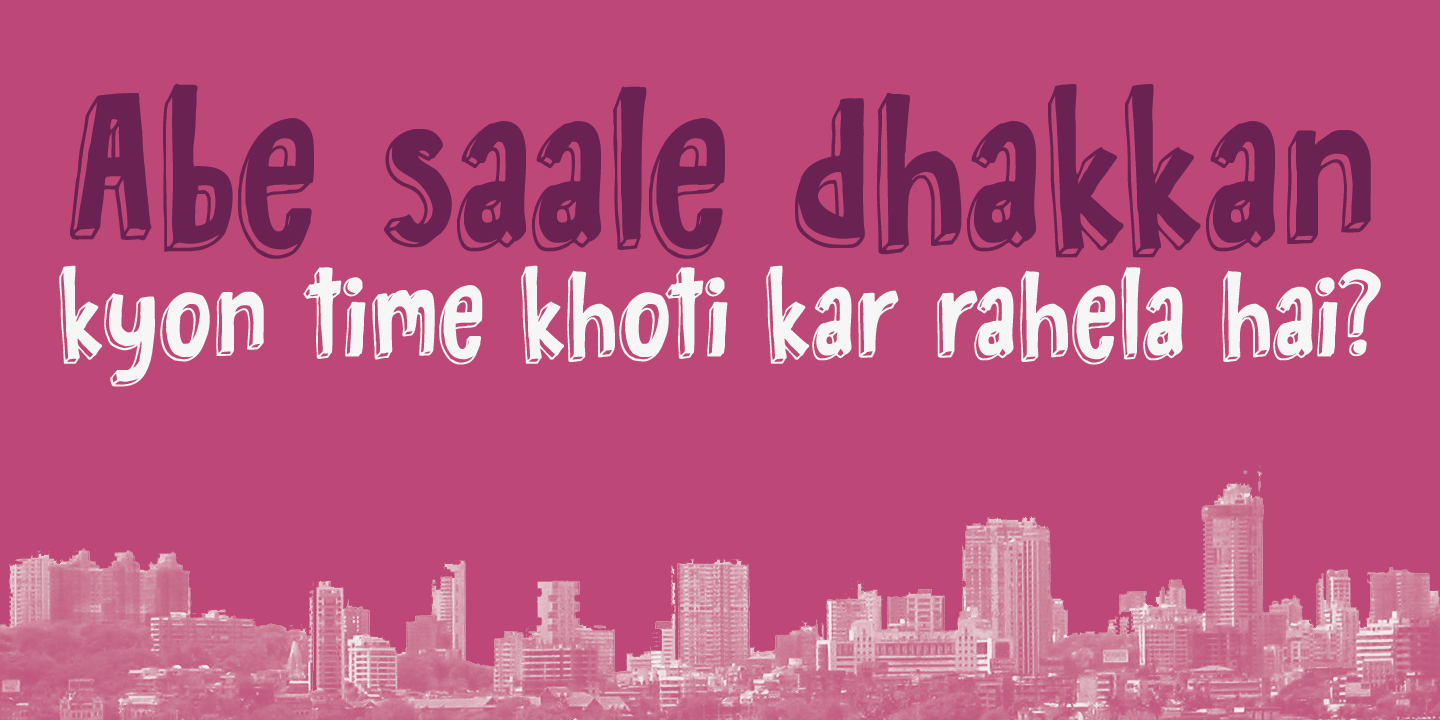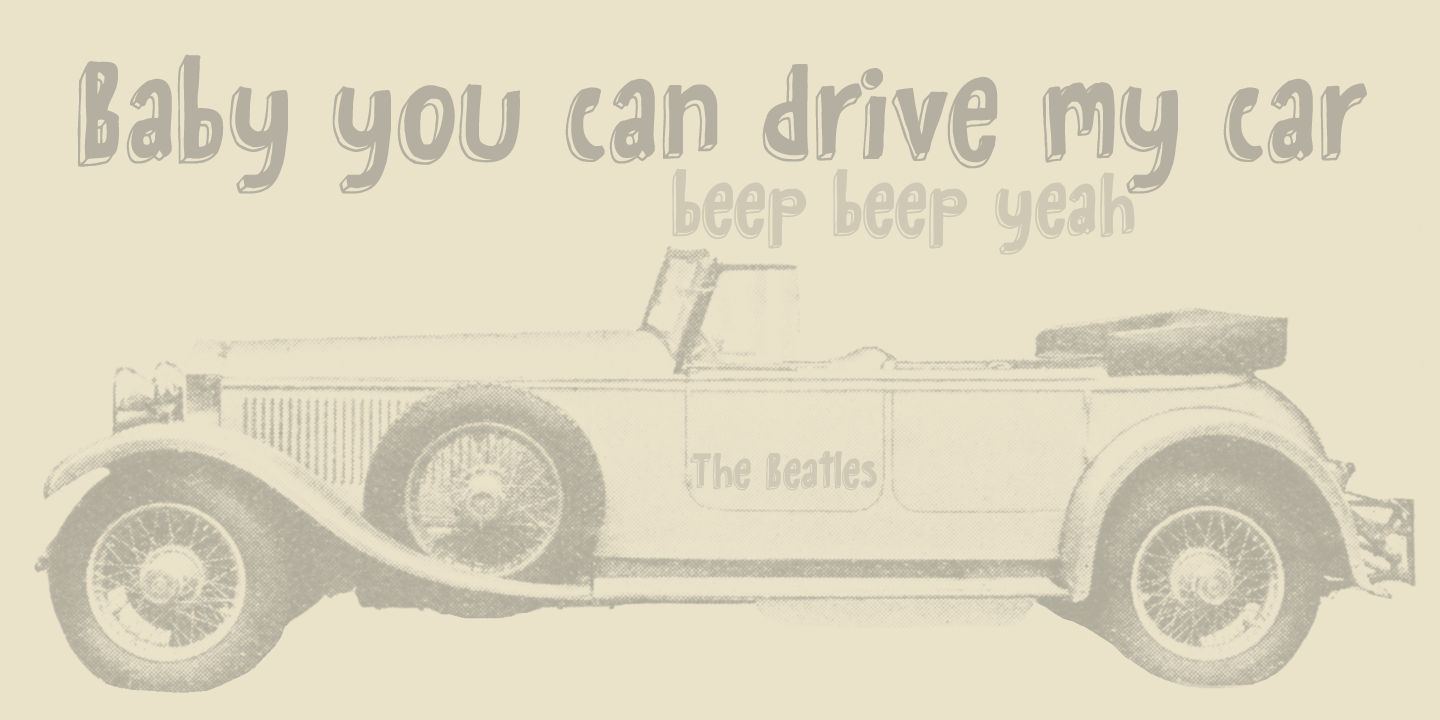
Bombay Blue
After having finished Pondicherry font, I stayed in the ?Indian Mood? (so to speak) and named this font after another Indian city. Bombay Blue turned out to be a handsome typeface with a flirty air, suburban chic and just enough sleaze to keep everyone happy.
Comes with a diacritical pantheon.